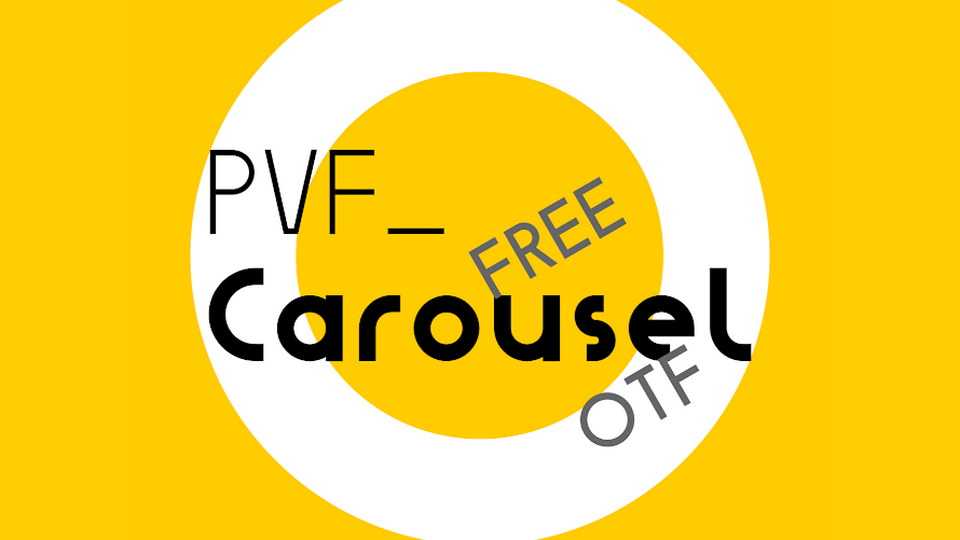
Download PVF Carousel font, a geometric sans serif, the great mixture of Humanist and Transitional touch in a modern geometric monoline typeface.
Designer: Petros Vasiadis